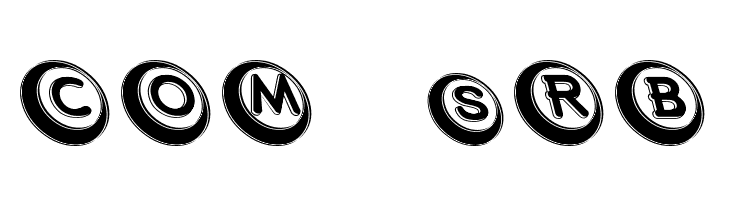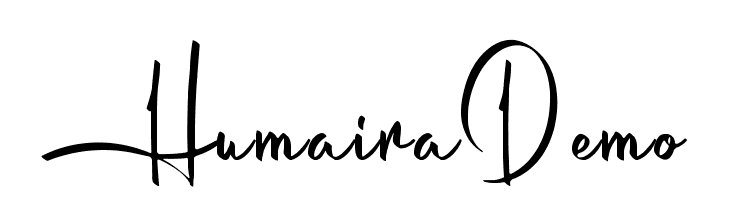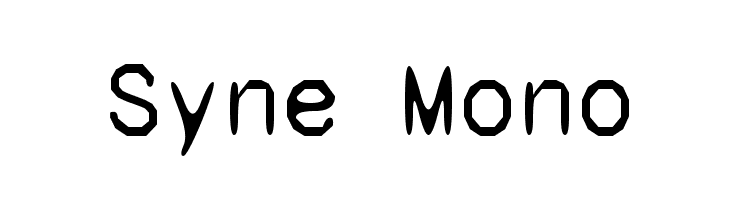
A clean, geometric outline font with uniform line weight and modern appeal.
A modern, monospaced font with a geometric and uniform design.
A lively and expressive handwritten font with fluid, flowing letterforms.
A monospaced, italic font with a clean, modern design ideal for coding.
An elegant serif font with artistic curves and a medieval touch.
A bold, 3D font with circular borders and shadow effects for a striking appearance.
A bold, condensed font with high contrast and a modern, impactful style.
A bold, decorative font with retro patterns and intricate detailing.
A bold, geometric typeface with a modern, tech-inspired design.